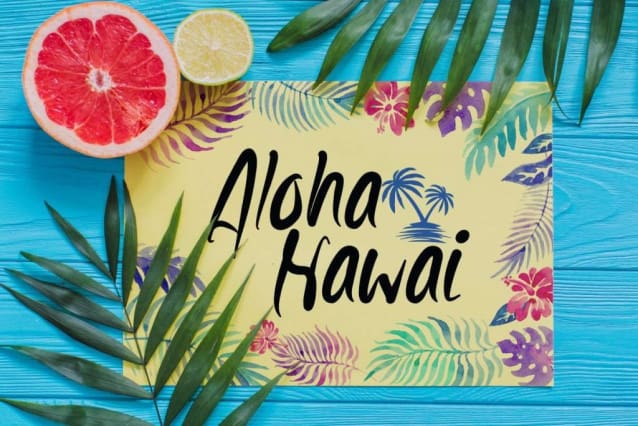
Beach Night Font
Beach Night Font is a swirl handwriting font letters in a unique, quite bold, sophisticated and fresh look. You can mix and match your best combination. It works best for use in your design needs, such as album artwork, apps/blog/website pages, book titles, branding, cards, covers, frame art, invitations, logos, packaging, poster design, quotes, sign boards, stationery designs, t-shirt screen printing, and more.
Beach Night Font includes a complete set of Basic Uppercase and Lowercase Characters, Numbers, various Punctuation Marks and Symbols. How beautiful it is to enjoy the beach at night with this font! It’s fun & stylish to create the perfect typographic contrast for a varied range of industrial projects, such as accessories & merchandise, fashion, graphic design, handicraft, lodging, recreation, refreshing beverage, restaurant, surfing, vacation, etc.